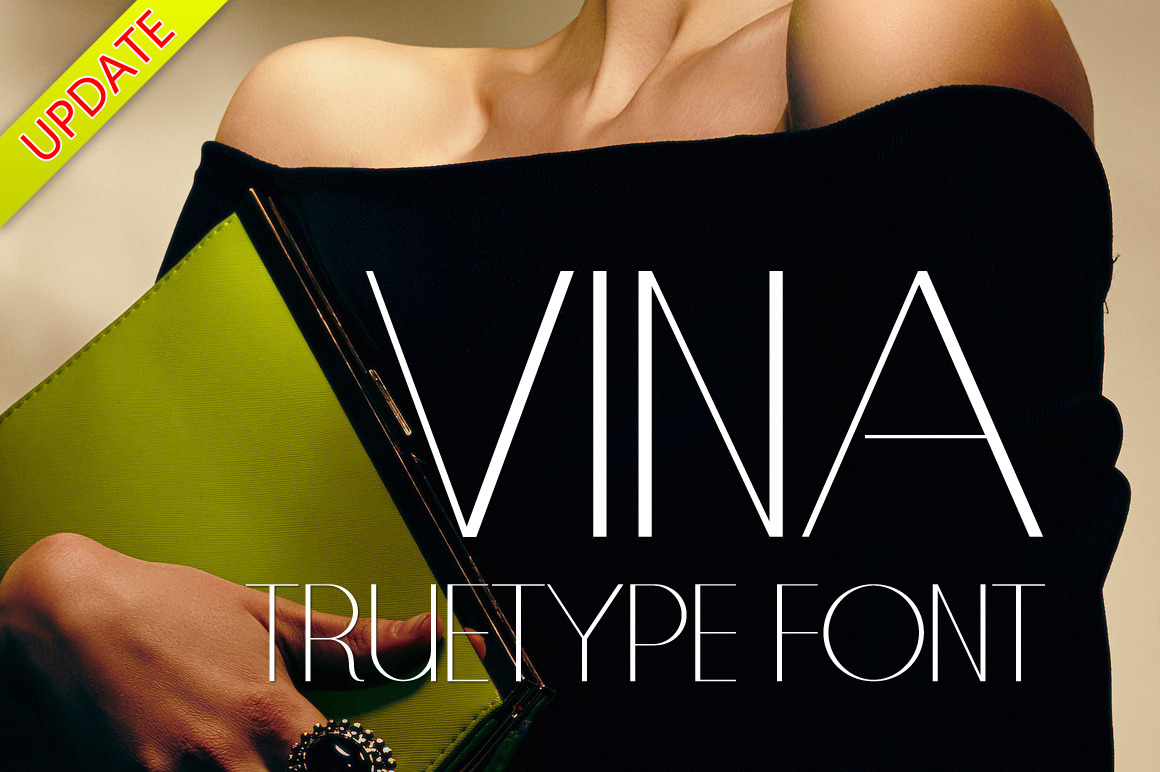
VINA TrueType Font
VINA TrueType Font is a fashionable, elegant font, suitable for advertising, fashion design, fashion show, contains 245 glyphs.
Update in March 19, 2015 Fix some glyphs error, added VIVA DemiBold, VIVA Medium font.